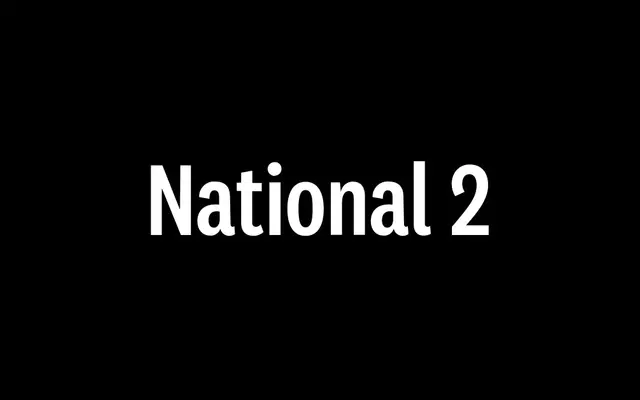
National 2 Condensed
Klim Type Foundry · Kris Sowersby · 2017
The middle condensed width of the National 2 system, a redrawn Akzidenz-rooted grotesque for tight columns and headlines.
The condensed cut of National 2 by Kris Sowersby, sitting between Narrow and Compressed in the redrawn National 2 system. Sixteen styles run from Thin to Black with paired italics, with every letter remastered, refined curves and improved weight distribution. The Akzidenz-era detailing keeps the voice humble and workmanlike at small sizes, while the condensed proportions earn their place in editorial headlines, social design and wayfinding.
Klim classifies it as Modern: Lineal/Grotesque; one of three new widths in the 10-year overhaul of National, sitting between Narrow and Compressed, with details drawn from the era of Akzidenz-Grotesk.